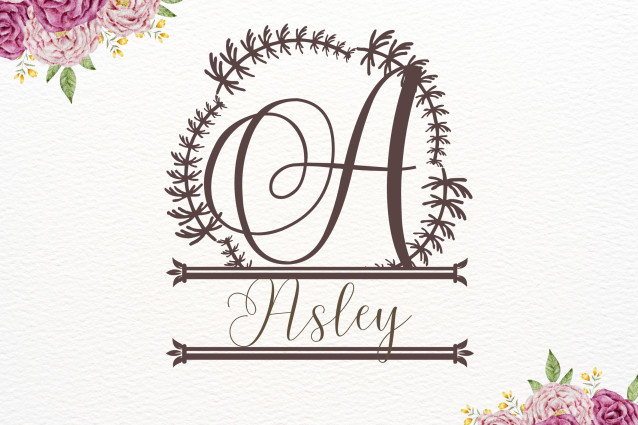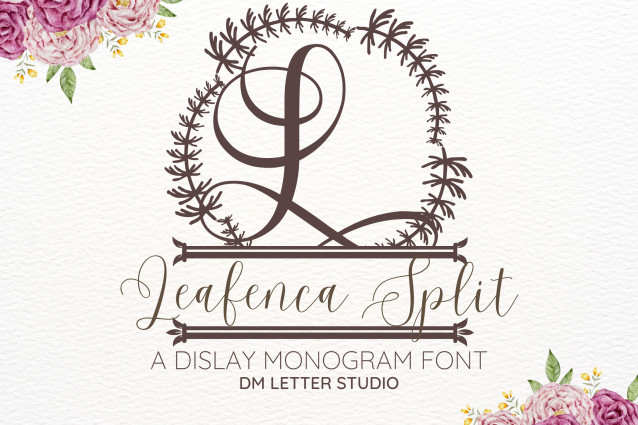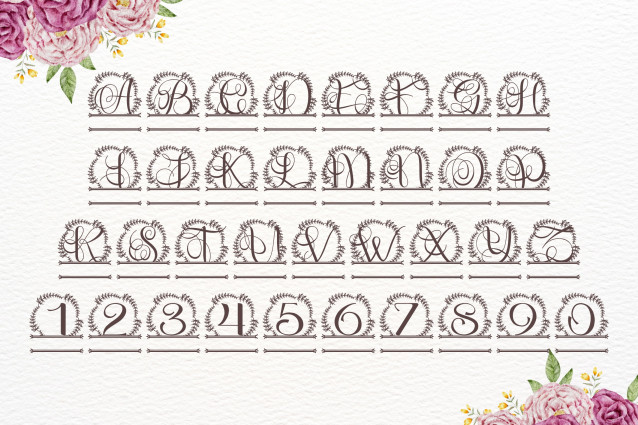
Leafenca Split Monogram Font
Leafenca Split Monogram Font is a graceful serif monogram font with refined botanical details and a centered split design for custom text. Each uppercase letter is enhanced with leafy flourishes and a clear horizontal gap, making it easy to personalize with names, dates, or short messages. Ideal for weddings, branding, packaging, and crafting projects, this font offers a perfect blend of elegance and natural charm.